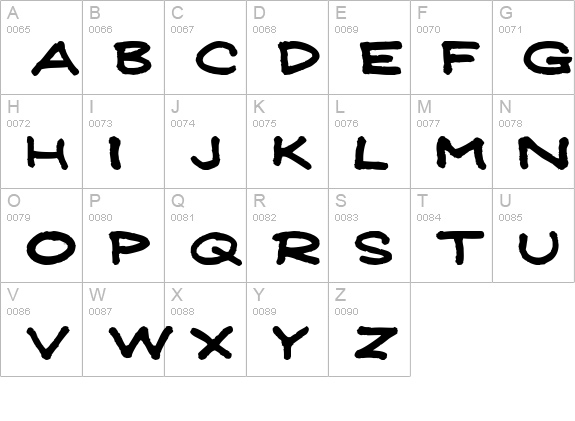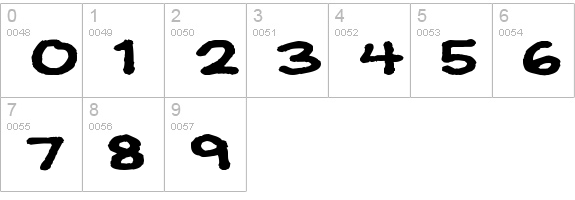
JeffreyPrint JL Wide is a distinctive, extended-width variant in the JeffreyPrint typeface family \xE2\x80\x94 well suited to design and typography projects.
JeffreyPrint JL Wide font is a modern and stylish typeface that exudes professionalism and sophistication. With its bold and wide letterforms, this font is perfect for making a statement in any design project. Whether you are creating posters, logos, or branding materials, JeffreyPrint JL Wide font will surely catch the eye of your audience. The best part about JeffreyPrint JL Wide font is that it is available for free download at FontsMarket.com. This means that you can easily access this high-quality font without any cost, making it a valuable addition to your font library. Don't miss out on the opportunity to enhance your designs with the elegant and versatile JeffreyPrint JL Wide font today!